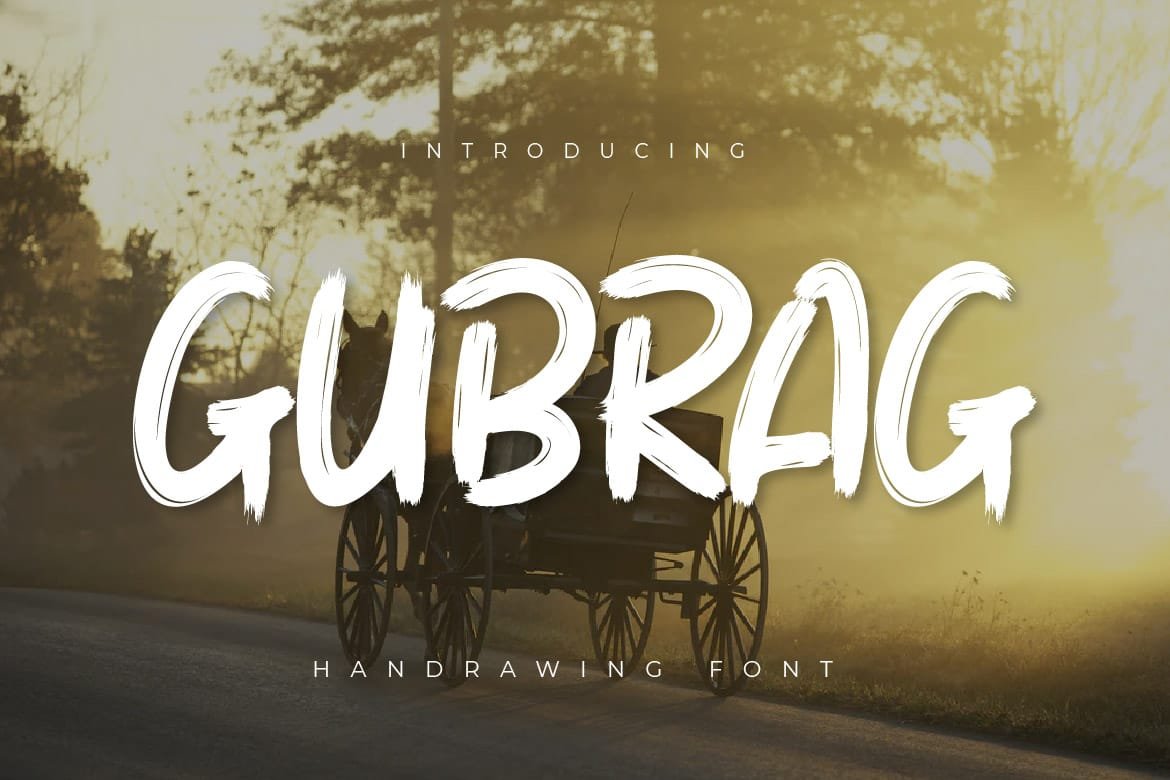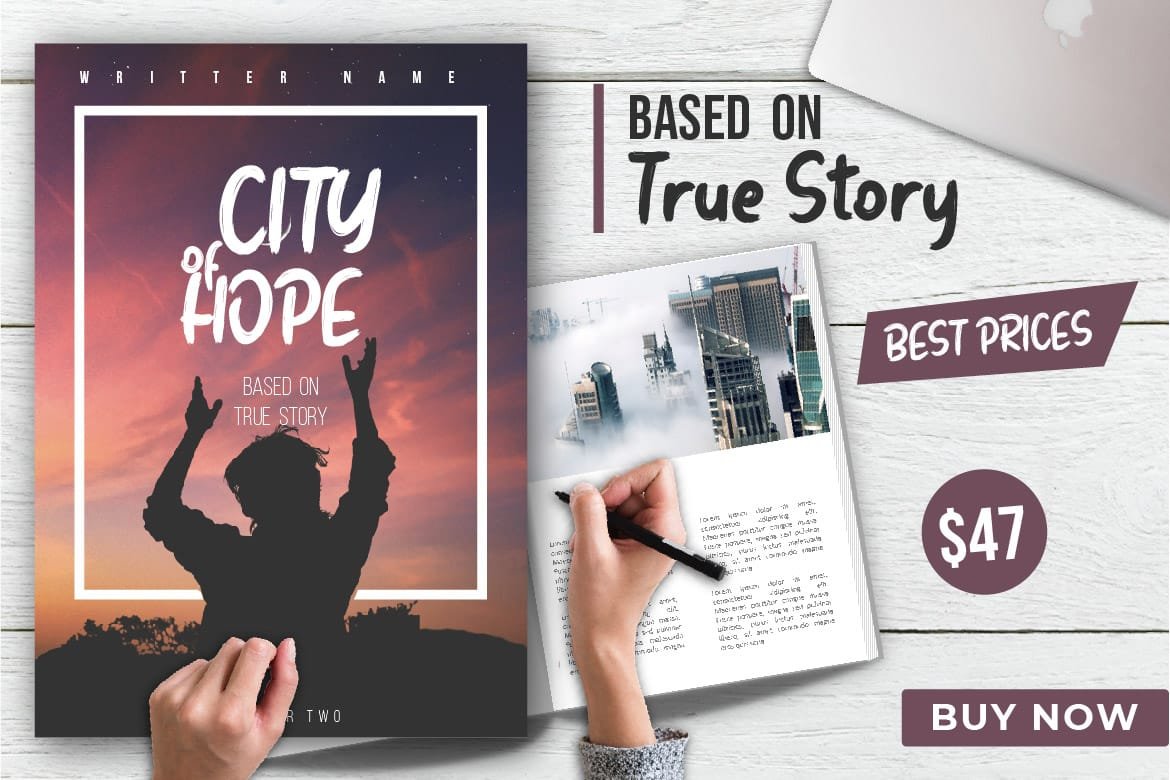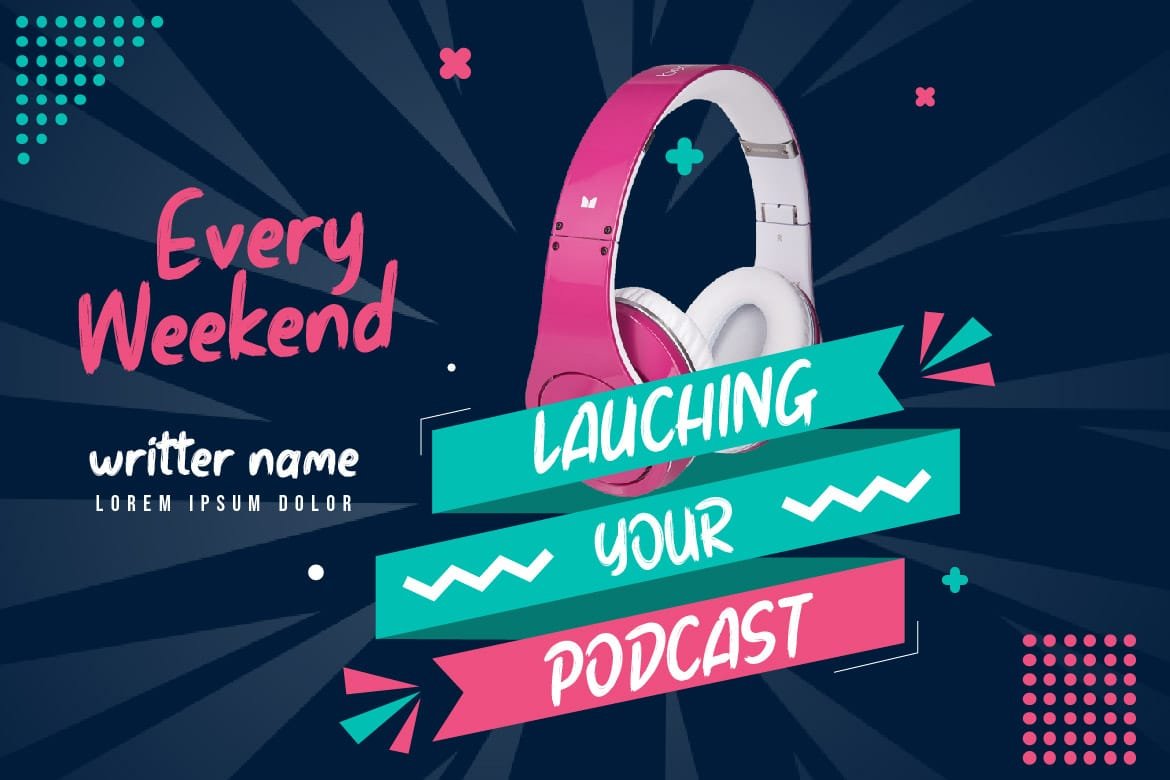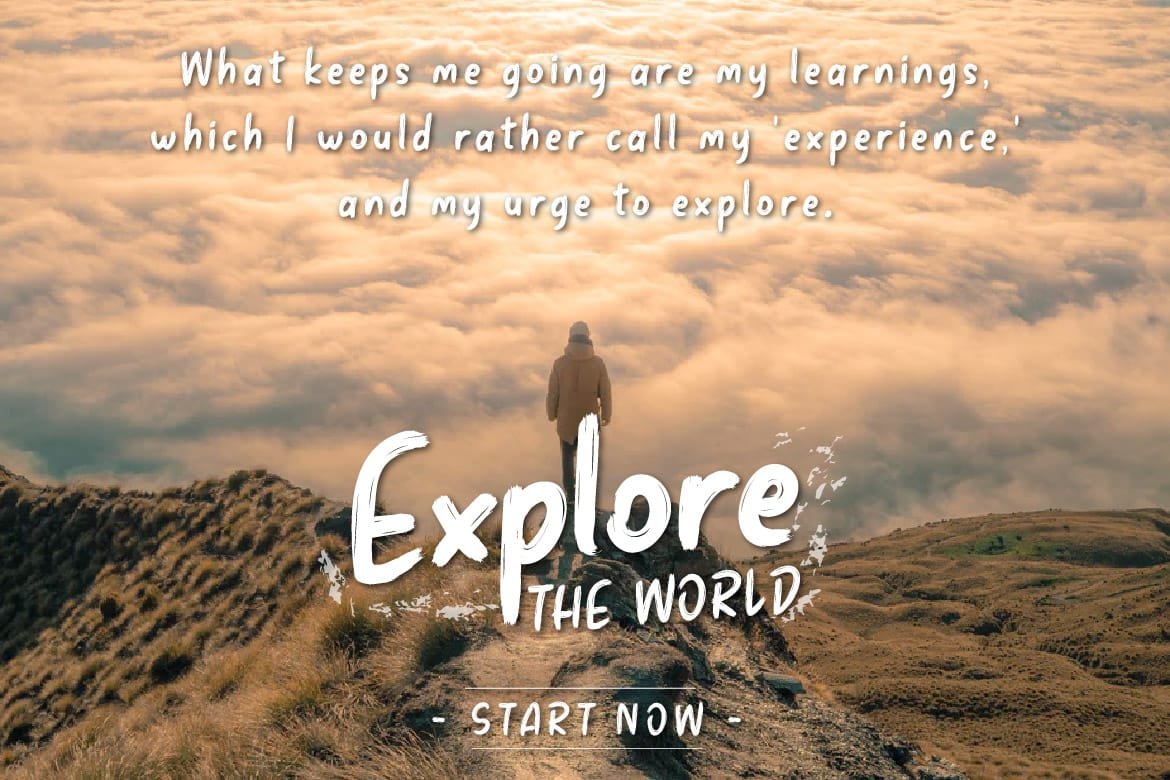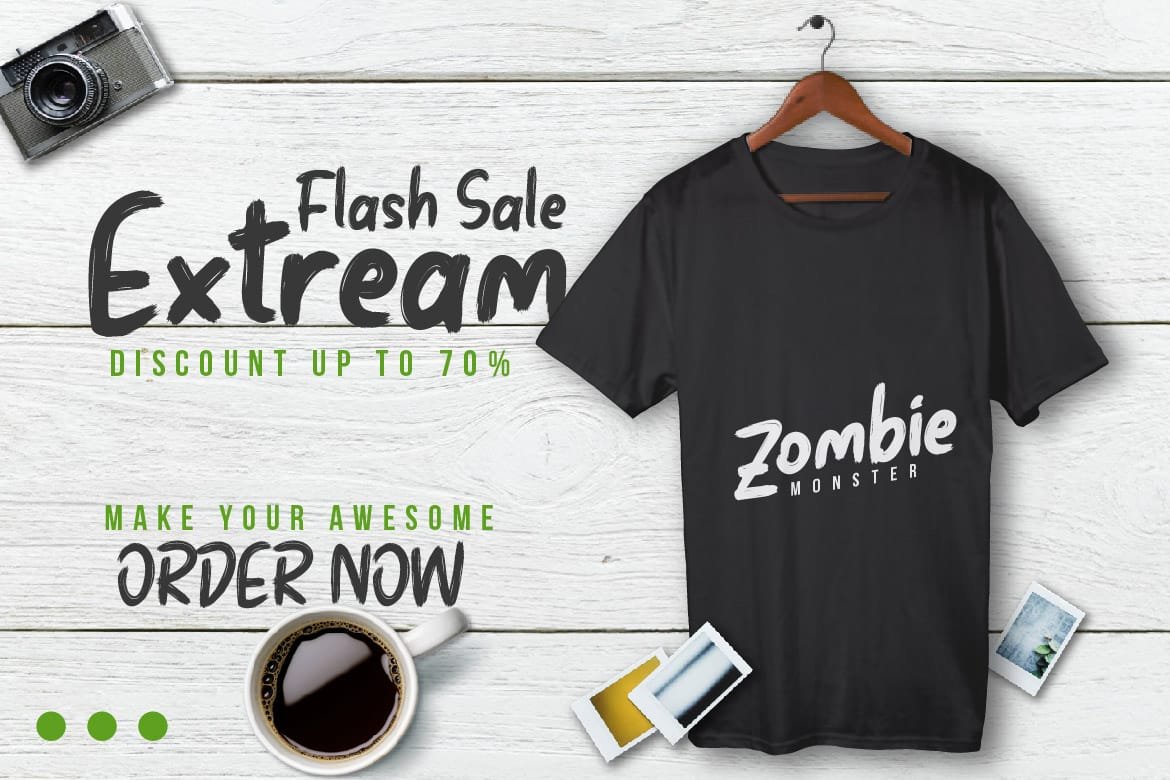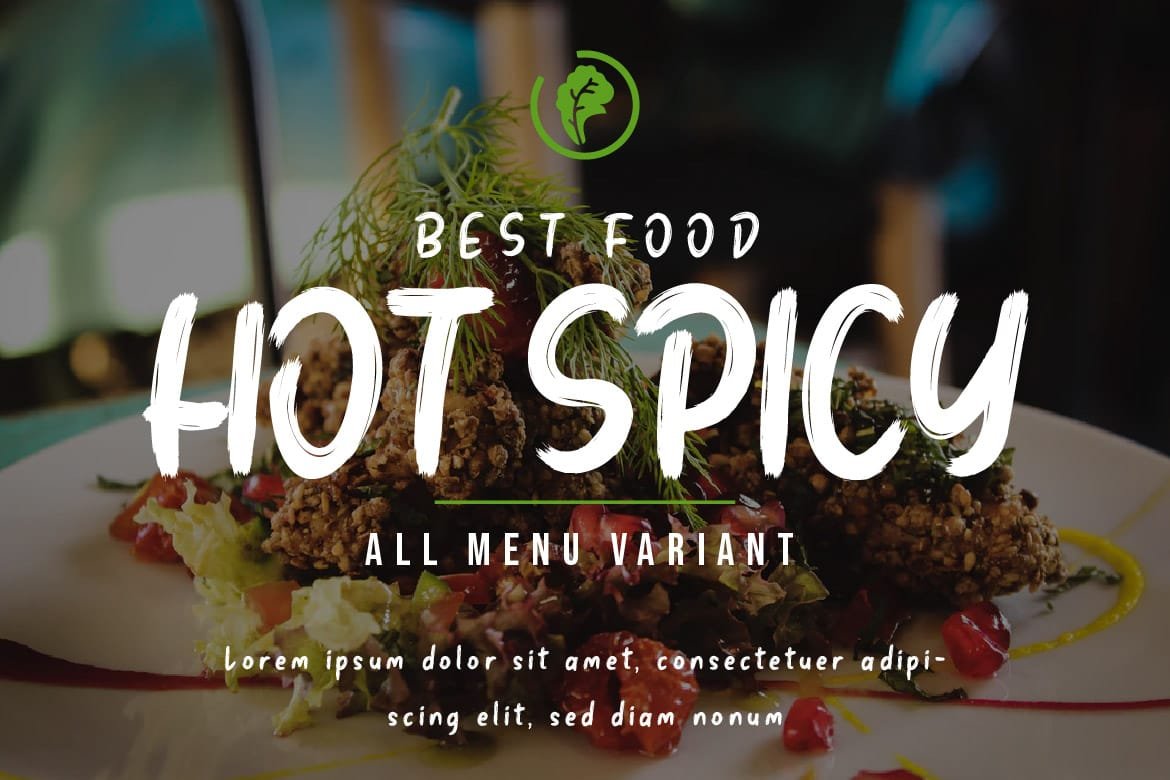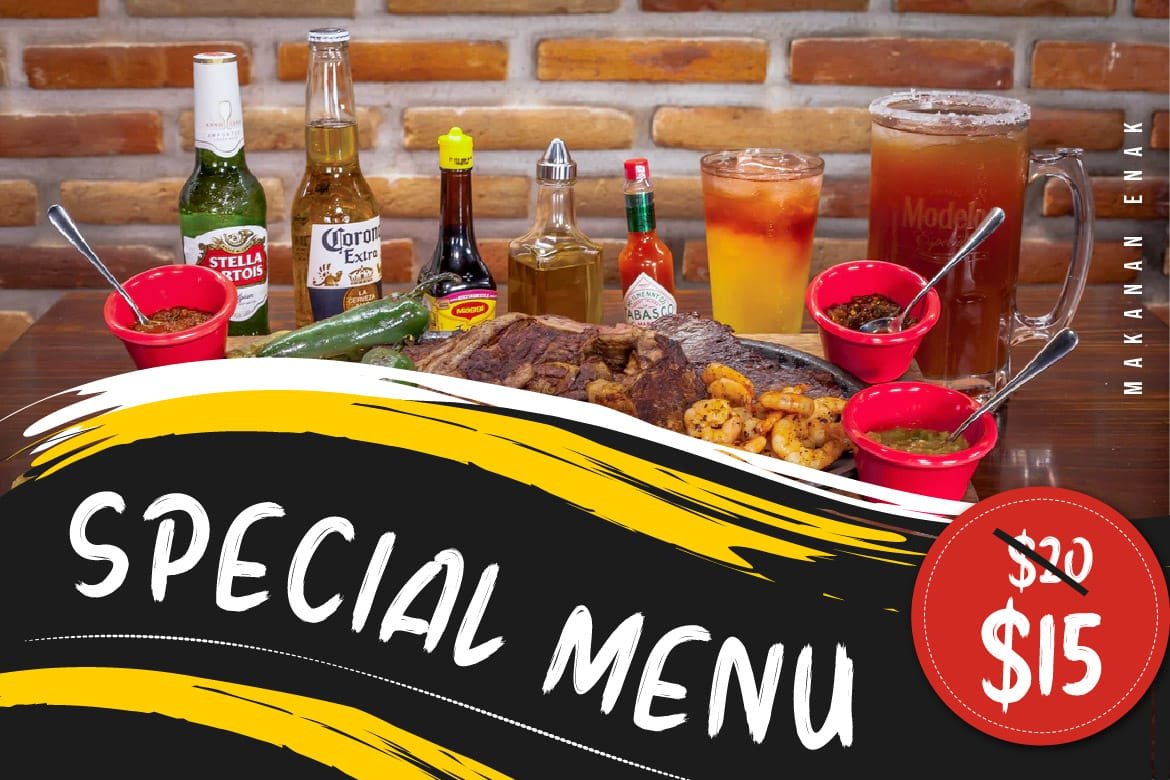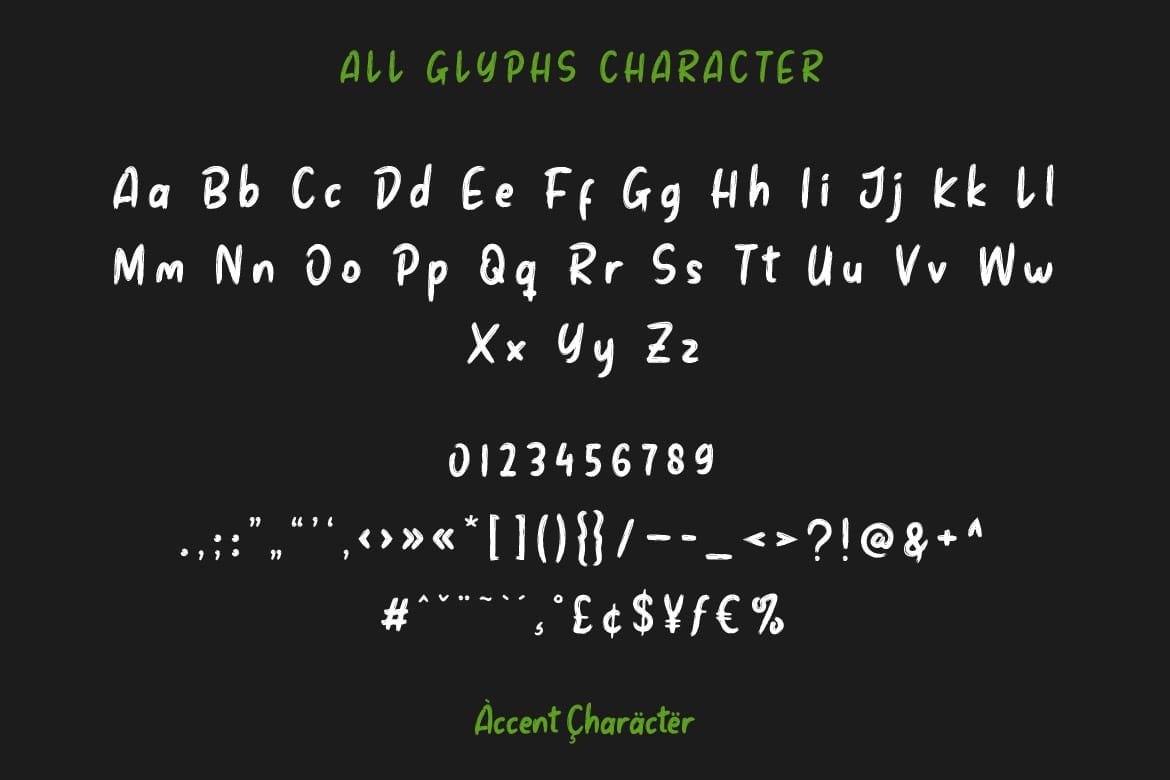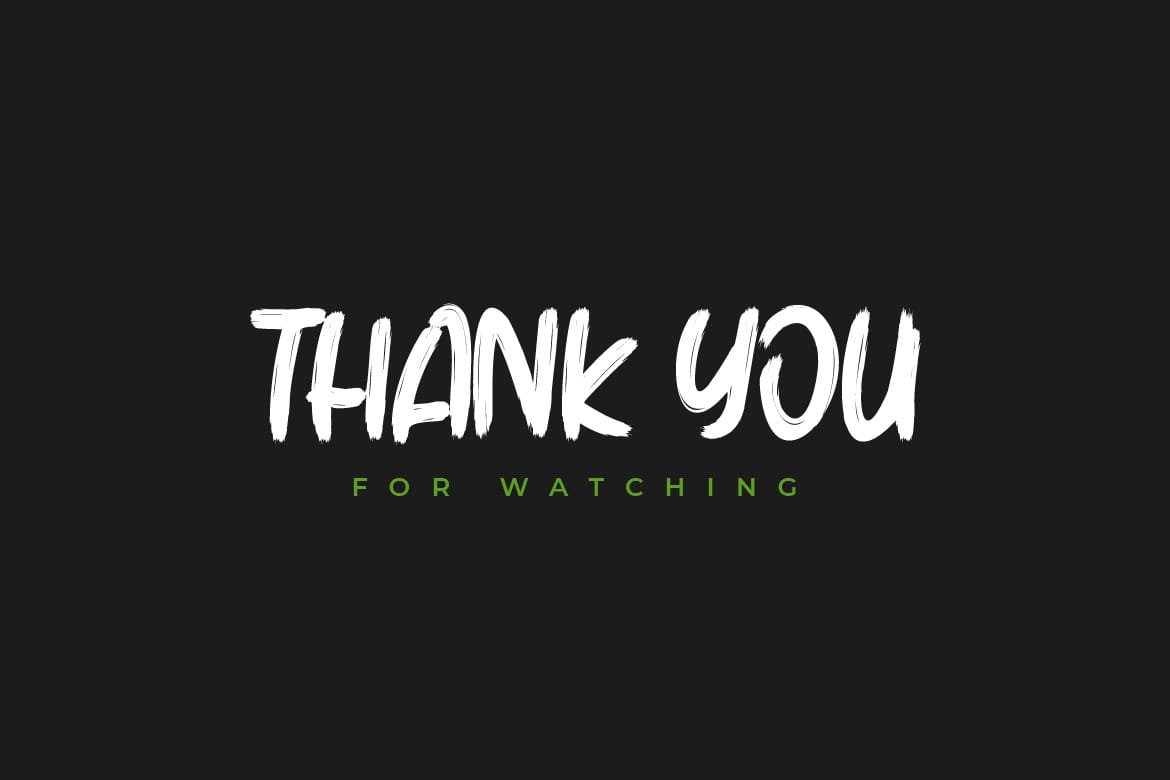
Gubrag – Brush Handwritten Font
Welcome to the world of Gubrag – Brush Handwritten Font! Let your creativity flow with this bold and expressive typeface that dances across the page like a burst of energy. With its strong, confident strokes and dynamic curves, Gubrag adds a touch of personality and flair to any project. Whether you’re designing eye-catching posters, creating captivating social media graphics, or giving your branding a fresh new look, Gubrag is your go-to font for making a statement. Get ready to stand out from the crowd and unleash your creativity with Gubrag!